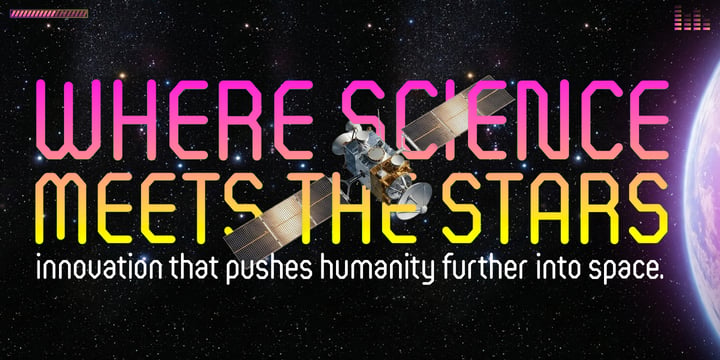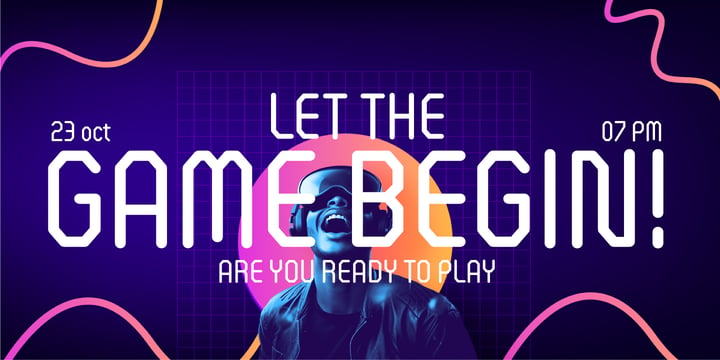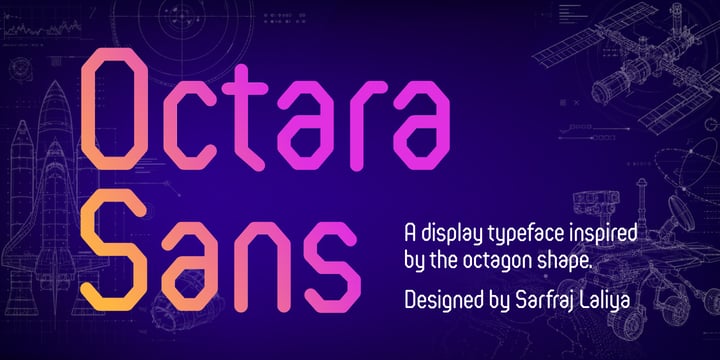
Sarfaraj Laliya
Sarfraj Laliya is an Indian type designer, art director, and founder of Laliya, an independent type foundry based in Gujarat, India. A graduate of the Department of Applied Arts, The Maharaja Sayajirao University of Baroda, Sarfraj has over 13 years of experience in advertising, branding, and visual communication.
Throughout his career, he has worked with renowned agencies including Publicis, ITSA, and Ogilvy, creating campaigns for leading FMCG and consumer brands. His work has been recognized with prestigious national and international awards, including a Silver Cannes Lion, as well as honors from D&AD, The One Show, and Goafest.
Drawing from his extensive experience in design studios and advertising agencies, Sarfraj creates typefaces that combine strong visual character with practical usability. His approach to type design is rooted in communication, focusing on fonts that perform effectively across branding, advertising, packaging, editorial, and digital applications.
Through Laliya, he aims to develop original typefaces that help designers communicate with clarity, personality, and impact.